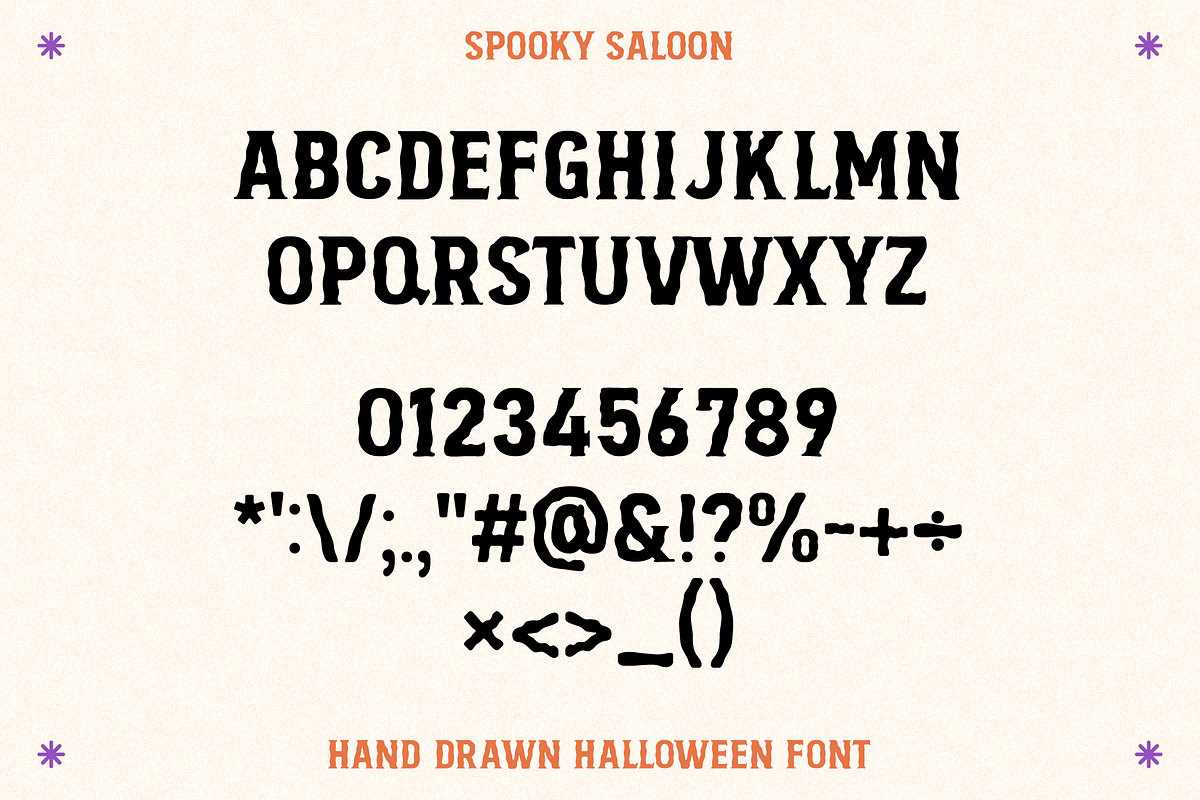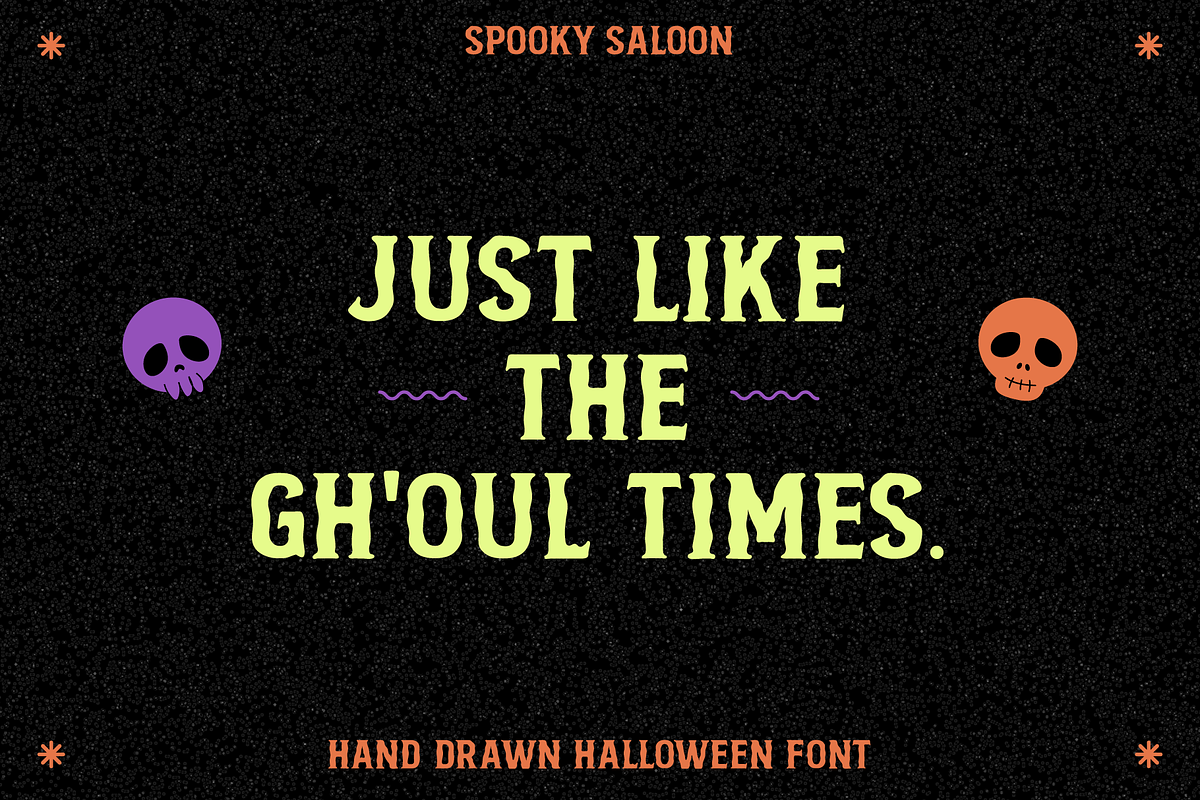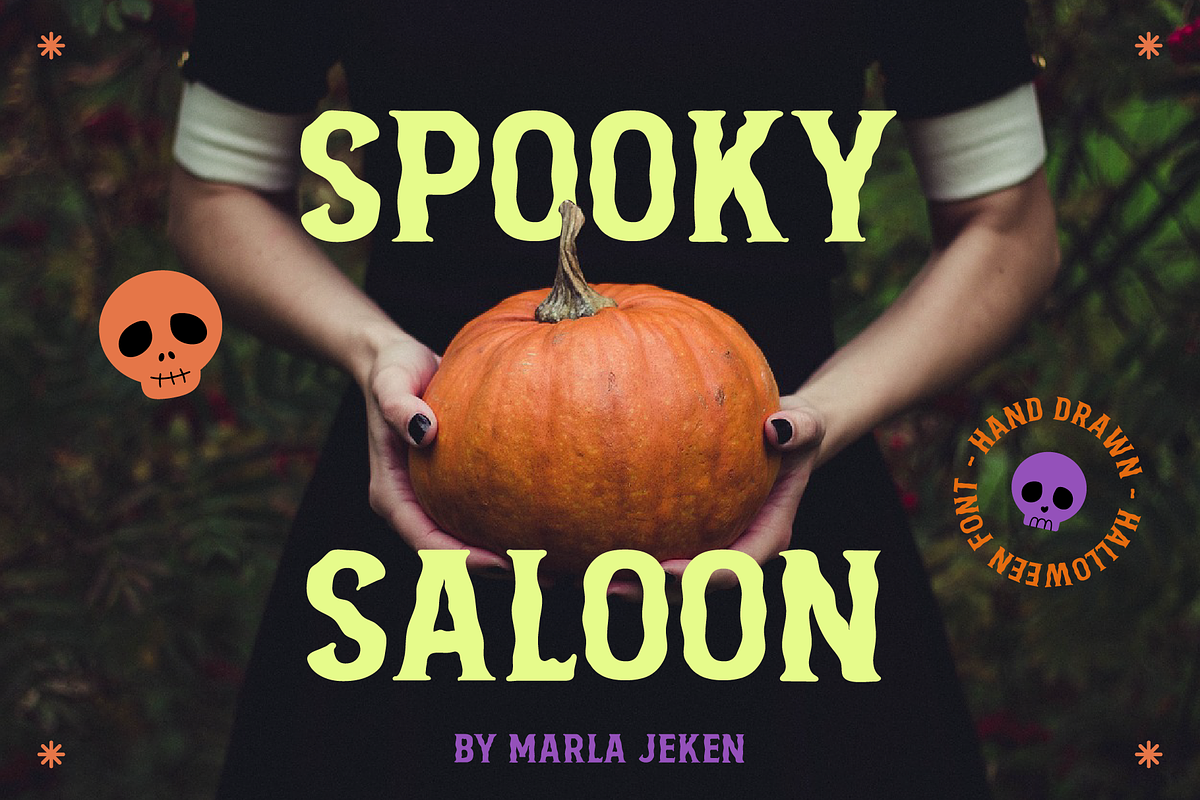
Spooky Saloon
Spooky Saloon is a hand-drawn Halloween font inspired by the Wierd West! A spooky and playful font with round edges, just in time for your next Halloween-themed project :)